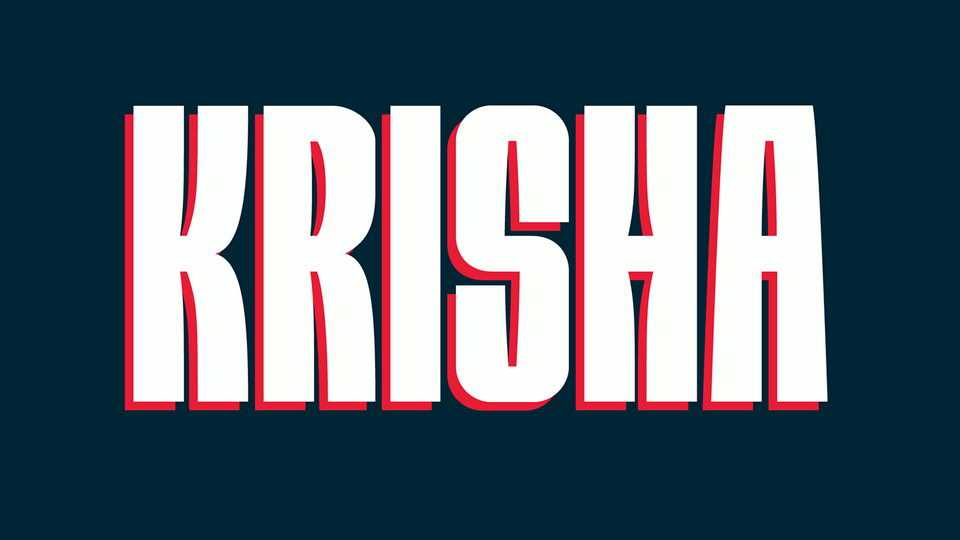
Download Krisha font, a big, bold and strange display sans serif typeface. Krisha font is ideal for loud headlines and messages, eye-catching posters, logos, branding and more.
Designer: Daler Mukhiddinov